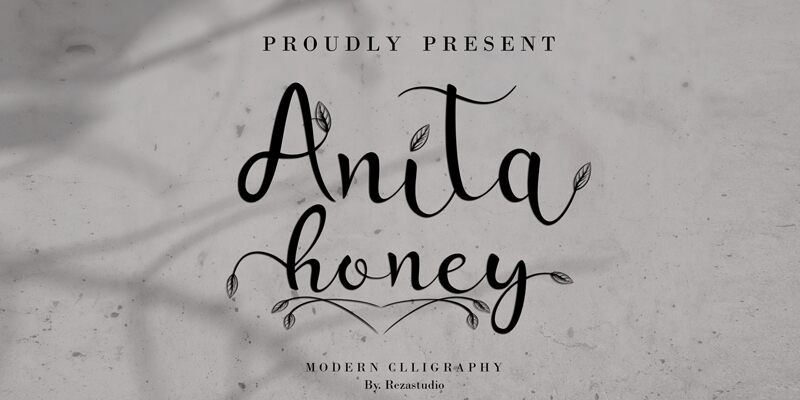
Anita Honey is a sweet and round lettered script font carefully created with a touch of elegance. Whether youre looking for fonts for Instagram or calligraphy scripts for DIY projects, this font will turn any creative idea into a true piece of art!
Anita honey